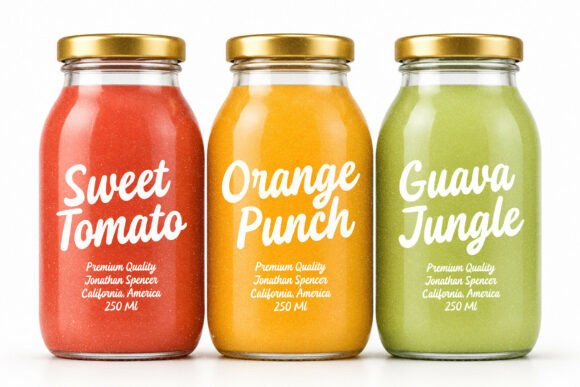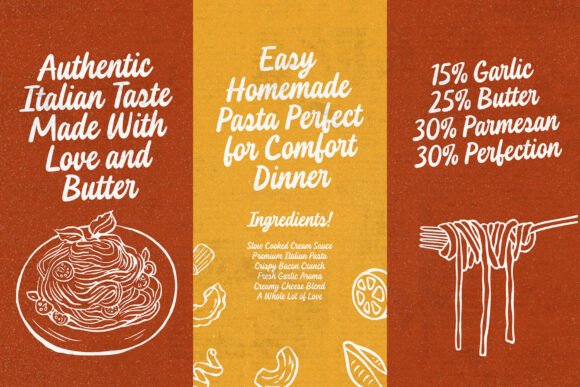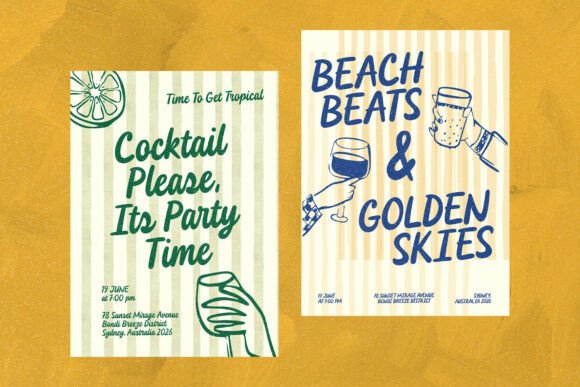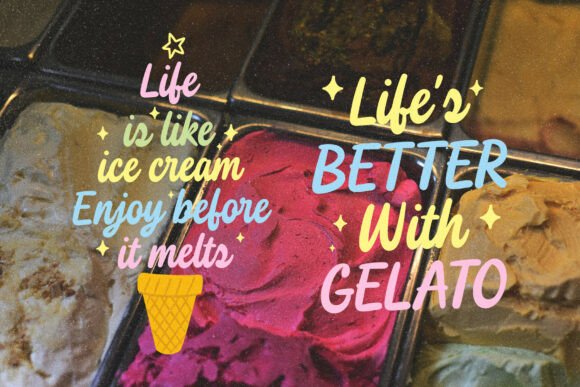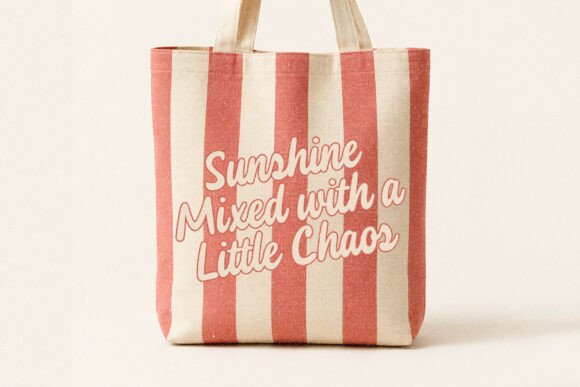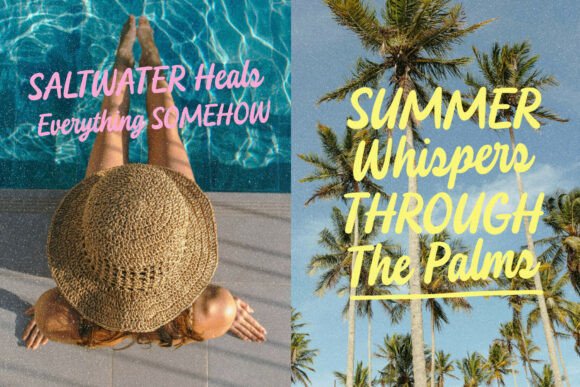
Introduction to Jamoa Script Font
Jamoa Script is a playful groovy script font inspired by sunny summer vibes, retro cafés, beach parties, and warm handcrafted packaging.
Featuring bold flowing letterforms with a natural and expressive rhythm, this font brings a lively, relaxed, and cheerful personality to every design Jamoa Script is perfect for food and beverage branding, posters, packaging, logos, tote bags, social media, and various lifestyle designs with a fun modern touch.
Key Features of Jamoa Script Font